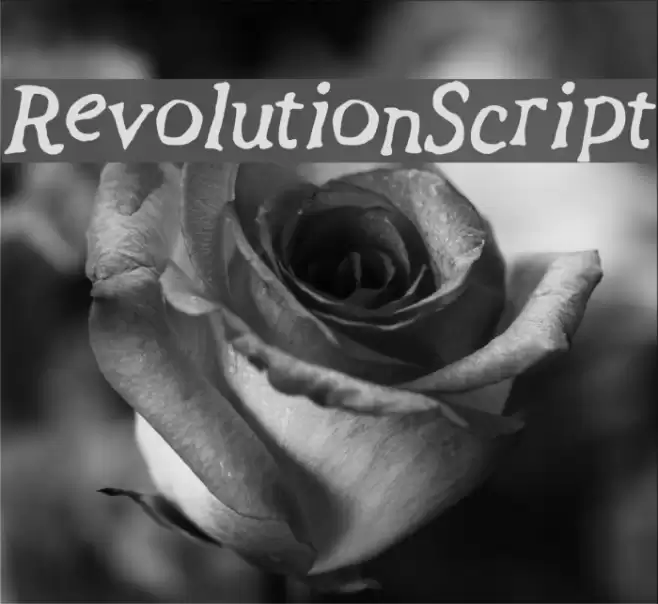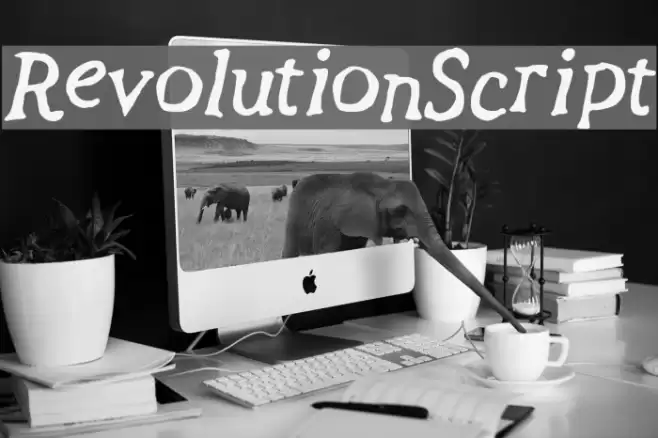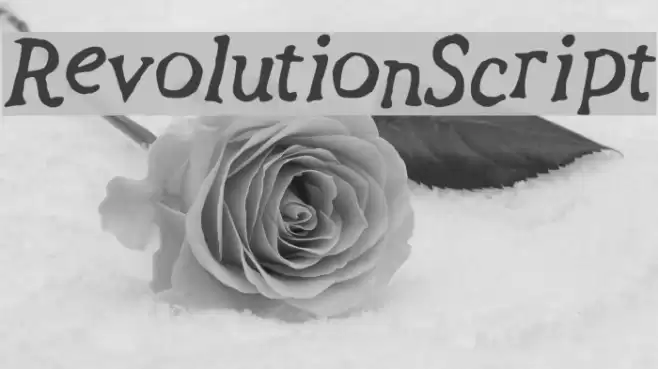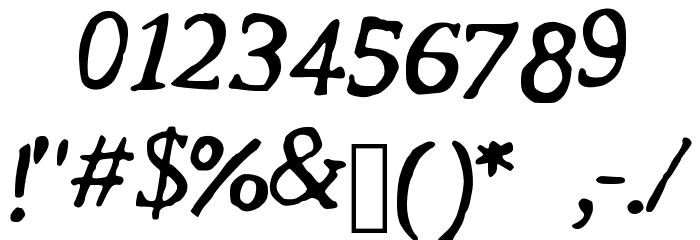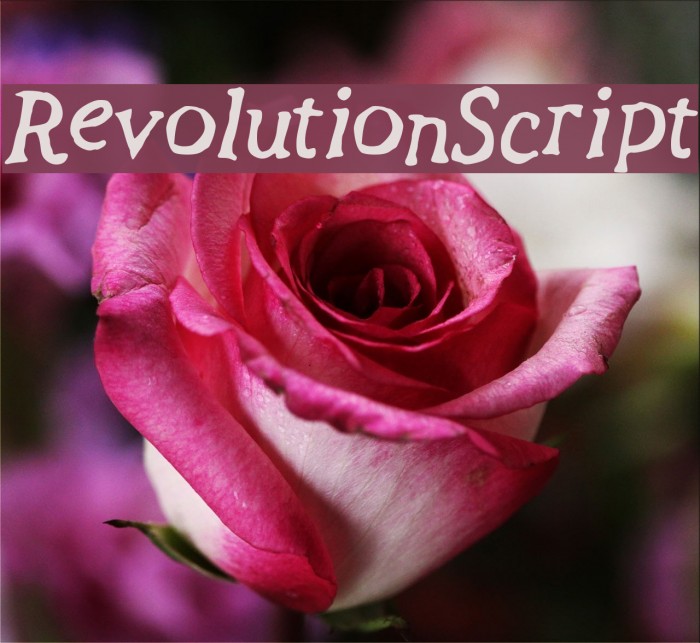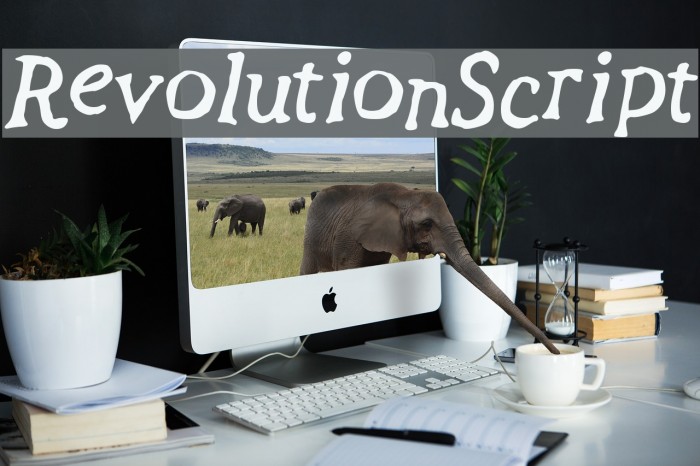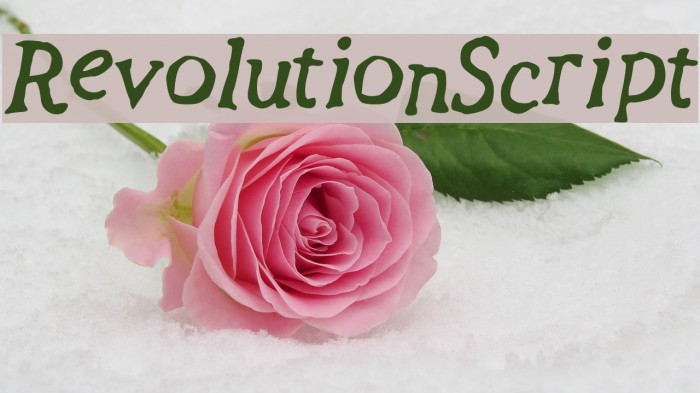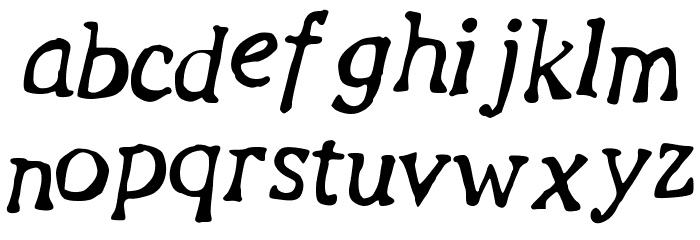
Revolution_Script Font
Revolution_Script Description
This font features a dynamic and flowing script style that captures a sense of movement and elegance. The characters are slightly slanted, giving it a handwritten appearance, while maintaining clarity and readability. The uppercase letters are bold and prominent, with a slight flourish that adds a touch of sophistication. The lowercase letters are more subdued, yet they maintain the same fluidity and grace. Numbers and special characters are consistent with the overall style, ensuring a cohesive look across all text. This font is perfect for projects that require a personal touch or a sense of elegance.
A dynamic script font with a flowing, handwritten style from Uncategorized fonts.
- Proposed Projects: Ideal for wedding invitations, greeting cards, branding, and logo design.
- Overall Style: Elegant and Handwritten
- Use Case: Headlines, Invitations, Logos